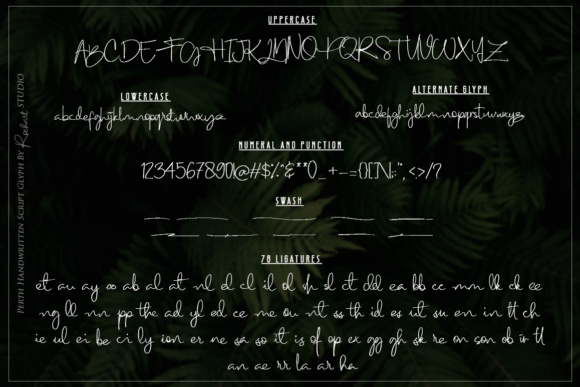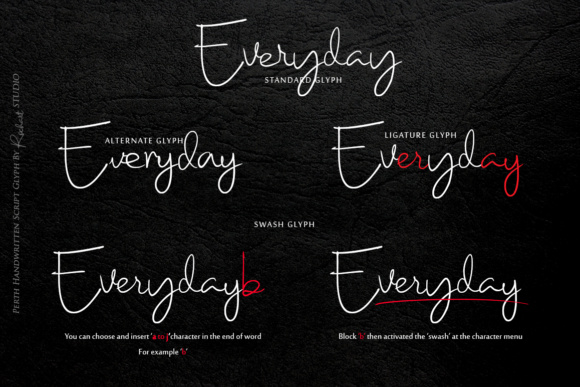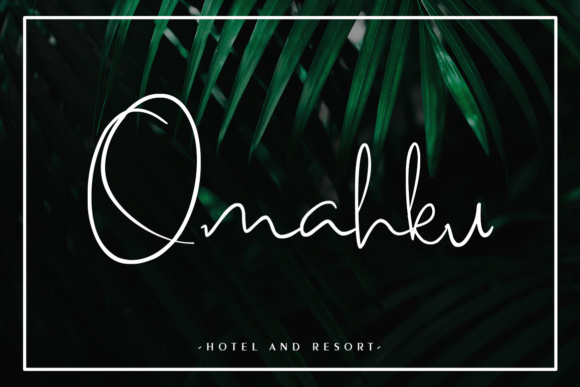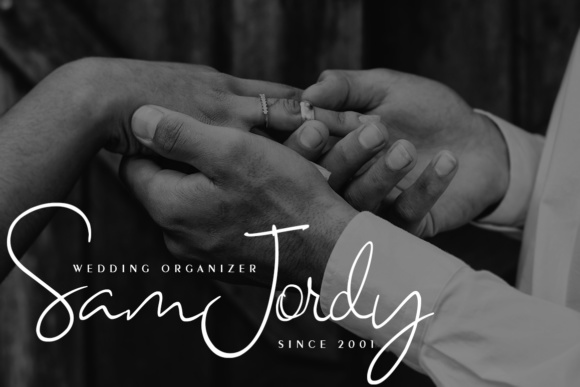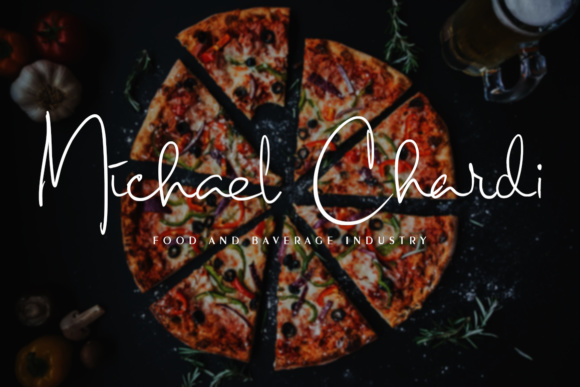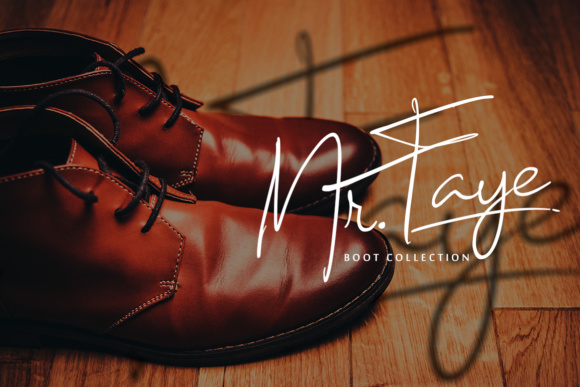
Introduction to Perth Script Font
As a designer, there’s nothing quite like the thrill of bringing a creative project to life. It’s that moment when a blank canvas transforms into a vibrant, dynamic space that tells a story and evokes emotions. For me, it’s the perfect blend of art and science – a delicate dance between aesthetics and functionality. But, let’s be honest, finding the right design resource can be a challenge. That’s why I’m excited to share with you one of my favorite fonts: the Perth Script Font.
With its unique, handwritten signature script style, the Perth Script Font offers a wealth of creative possibilities. Its good readability and abundance of glyphs make it an invaluable asset for designers looking to add a personal touch to their projects. Whether you’re working on a high-quality brochure, a website, or even a social media graphic, the Perth Script Font is sure to elevate your design and give it a distinctive look.
Key Features of Perth Script Font
- High-quality, elegant script font perfect for creative projects and design resources.
- Features a beautiful, cursive script with unique flourishes and connecting strokes, adding a touch of sophistication to any design.
- Designed to be highly legible, even at smaller font sizes, making it ideal for use in a range of creative projects, from invitations to logos.
Honest Review: Perth Script Font
As a designer, I’m always on the lookout for high-quality design resources that can elevate my creative projects. Recently, I stumbled upon the Perth Script Font, and I’m excited to share my honest review.
- ✨ Elegant and sophisticated design: The Perth Script Font is perfect for creating a sense of luxury and sophistication in your designs.
- ✨ High-quality glyphs: The font features a wide range of glyphs, including uppercase and lowercase letters, numbers, and punctuation marks.
- ⚠️ Limited font weights: The Perth Script Font is only available in a single font weight, which may limit its use in certain design projects.
- ⚠️ No italics or bold options: Unfortunately, the font does not include italic or bold options, which may be a limitation for designers who need to emphasize certain text.
Overall, I’m impressed with the Perth Script Font’s elegant design and high-quality glyphs. While it may have some limitations, it’s a great free resource for designers looking to add a touch of sophistication to their creative projects.
Tips for Getting the Most Out of Perth Script Font
Use the Perth Script Font in combination with other high-quality design elements to create visually appealing designs. Experiment with different font sizes, colors, and styles to achieve the desired effect.
The Perth Script Font is ideal for wedding invitations, branding, and marketing materials. Its elegant and sophisticated design makes it perfect for creating memorable and eye-catching designs.